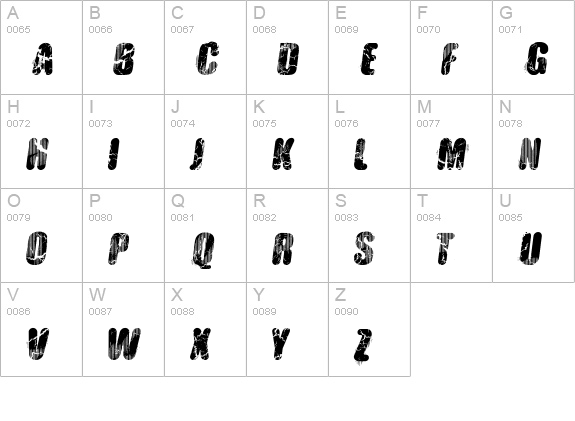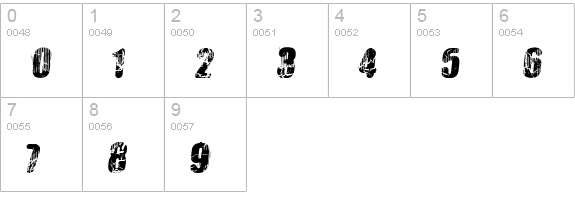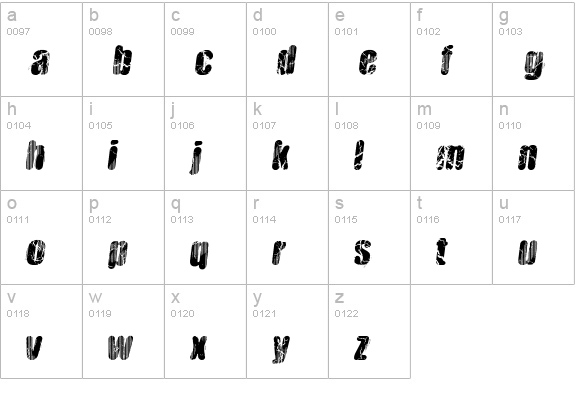
Vtks Hardness Font Details
Vtks Hardness font is a striking display typeface that exudes strength and boldness. Its sharp edges and angular design give it a rugged and tough appearance, making it perfect for projects that require a powerful and impactful visual presence. This font is versatile and can be used for various design purposes, from posters to logos to branding materials. What sets Vtks Hardness font apart is not only its unique design but also the fact that it is available for free download at FontsMarket.com. This means that designers and creatives can easily access this eye-catching font without any cost, making it a valuable resource for their projects. With its strong aesthetic and free availability, Vtks Hardness font is a must-have for anyone looking to make a bold statement in their designs.